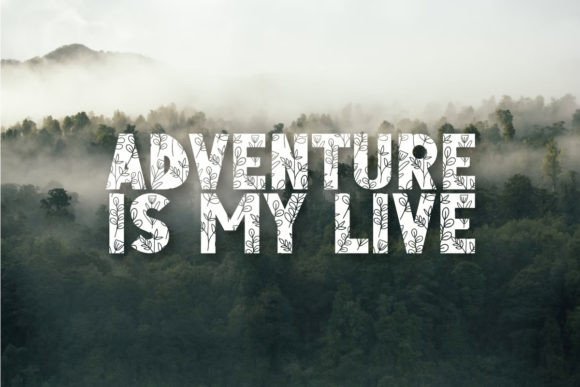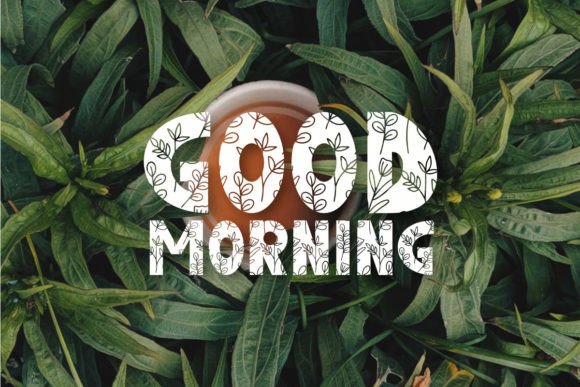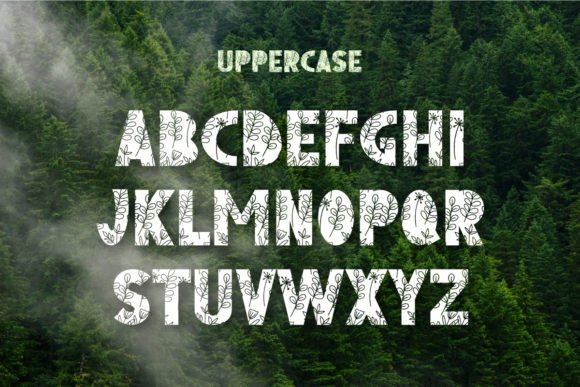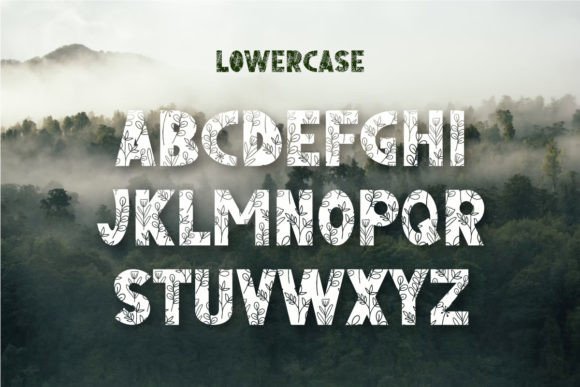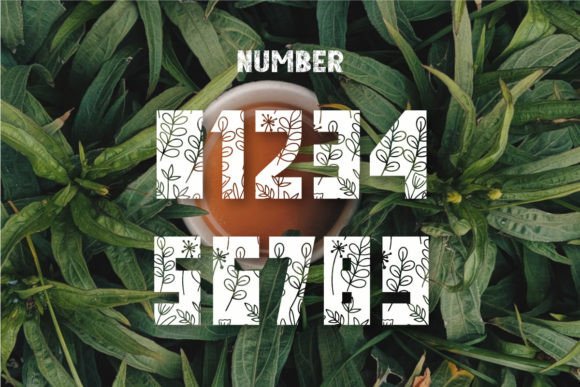
Discover the Beauty of the Hutani Font
Have you ever found yourself doodling flowers in the margins of your notebook, lost in the simplicity and elegance of nature’s designs? That’s where the magic of typography meets botanical beauty, and the Hutani Font is born. This stunning floral typeface is designed to transport you to a world of fresh, vibrant designs that are perfect for elevating your stationery, logo designs, and branding.
The Hutani Font is more than just a pretty face – it’s a valuable tool for designers looking to add a touch of whimsy and sophistication to their work. With this collection, you’ll be able to create beautiful, one-of-a-kind designs that are sure to capture attention and leave a lasting impression. Whether you’re a seasoned pro or just starting out, the Hutani Font is an essential addition to any designer’s toolkit.
Hutani Font Key Features
- Font Style: Hutani is a sans-serif font with a modern and clean design, suitable for various digital and print applications.
- Character Count: Hutani includes a wide range of characters, including uppercase and lowercase letters, numerals, punctuation marks, and special characters.
- Unique Characteristics: Hutani features a distinctive x-height and a subtle flair on the terminals, giving it a unique and recognizable look.
Hutani Font Review
Overall, I think the Hutani Font is a solid addition to any designer’s toolkit. ✨ The unique blend of modern and traditional elements gives it a distinctive look that’s perfect for projects where you want to add a touch of whimsy.
Here are some things that really stand out:
- Legibility: The Hutani Font is incredibly easy to read, even at small font sizes. ✨ This makes it perfect for body text or headings where you want to make sure your message gets across clearly.
- Customization: The font has a wide range of weights and styles, allowing you to customize it to fit your project’s needs. ✨ This is especially useful for creating a cohesive look and feel across multiple elements.
- Playfulness: The Hutani Font has a fun, playful vibe that’s perfect for projects where you want to add a bit of personality. ✨
- Limitations in certain languages: Unfortunately, the Hutani Font may not be the best choice for projects that require extensive text in languages other than English. ⚠️ The font’s unique design may not translate well to certain scripts or languages.
- Not ideal for small text: While the font is highly legible, it’s not the best choice for very small text sizes. ⚠️ In these cases, you may want to consider a more minimalist font.
Overall, I think the Hutani Font is a great choice for designers who want to add a bit of personality to their projects. While it may have some limitations, its unique design and high legibility make it a solid addition to any toolkit.
Here are some tips to get the most out of the Hutani Font:
- Use the font in combination with other fonts to create visual interest.
- Experiment with different font sizes and styles to add emphasis.
- Use the font in headings and subheadings to create a clear hierarchy of information.
The Hutani Font is suitable for:
- Designing business cards and letterheads.
- Creating social media graphics and advertisements.
- Designing brochures and flyers.